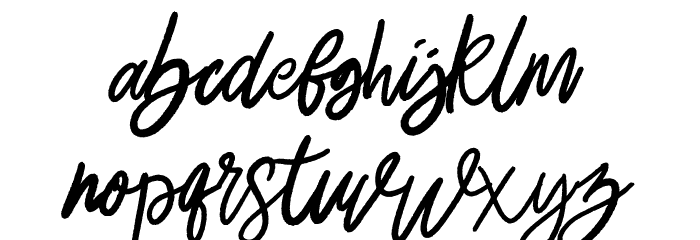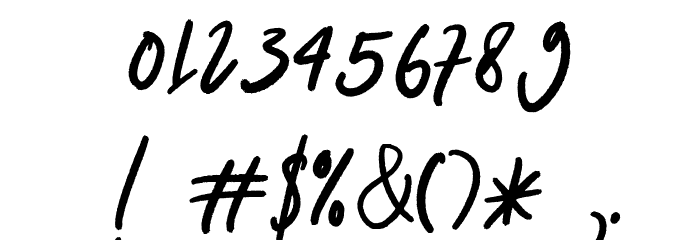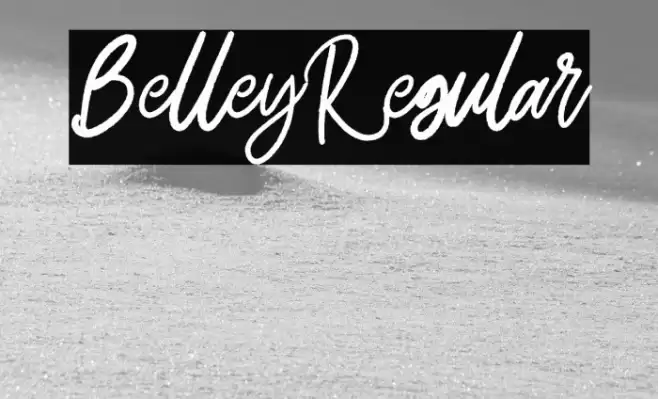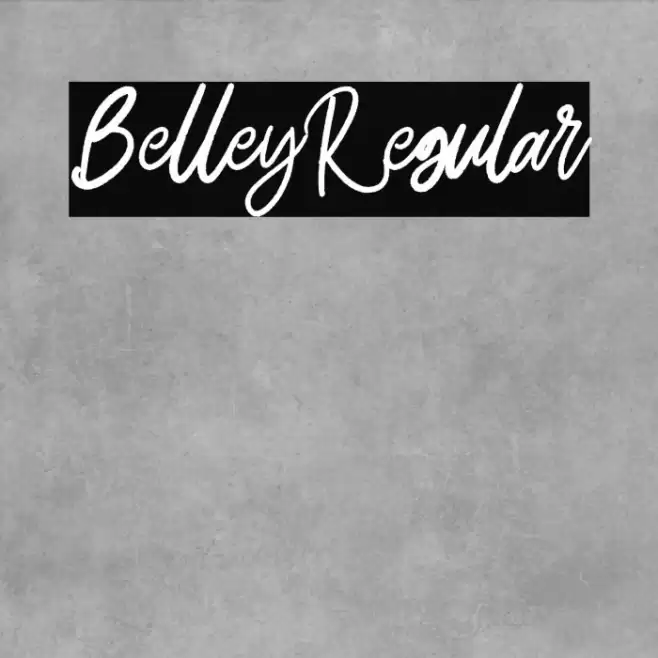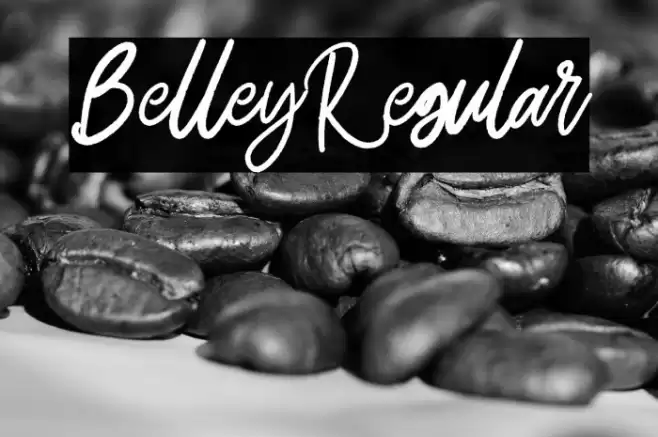
Belley-Regular Font
This font exudes a lively and energetic vibe with its handwritten style, characterized by fluid strokes and a natural flow. The uppercase letters are bold and slightly slanted, giving a sense of movement and dynamism. The lowercase letters maintain a consistent style, with some letters featuring unique loops and curves that add personality. The numerals are clear and legible, matching the playful yet sophisticated style of the alphabet. Special characters are creatively designed, maintaining the overall aesthetic. This font is perfect for projects that require a personal touch, such as invitations, greeting cards, or branding materials that aim to convey warmth and approachability.
A lively handwritten font with fluid strokes and a dynamic style.
- Proposed Projects: Ideal for invitations, greeting cards, personal branding, and creative projects.
- Use Case: Logos, Headlines, Invitations